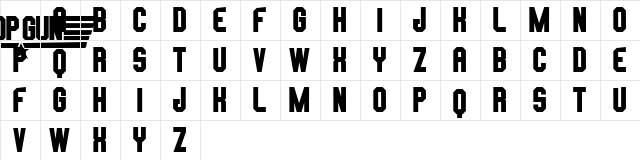
TOP GUN Regular
| Designer | P.A.Vannucci |
Design Context for TOP GUN Typeface
TOP GUN is a composed and adaptable typeface that performs quietly and consistently across a wide range of design contexts.